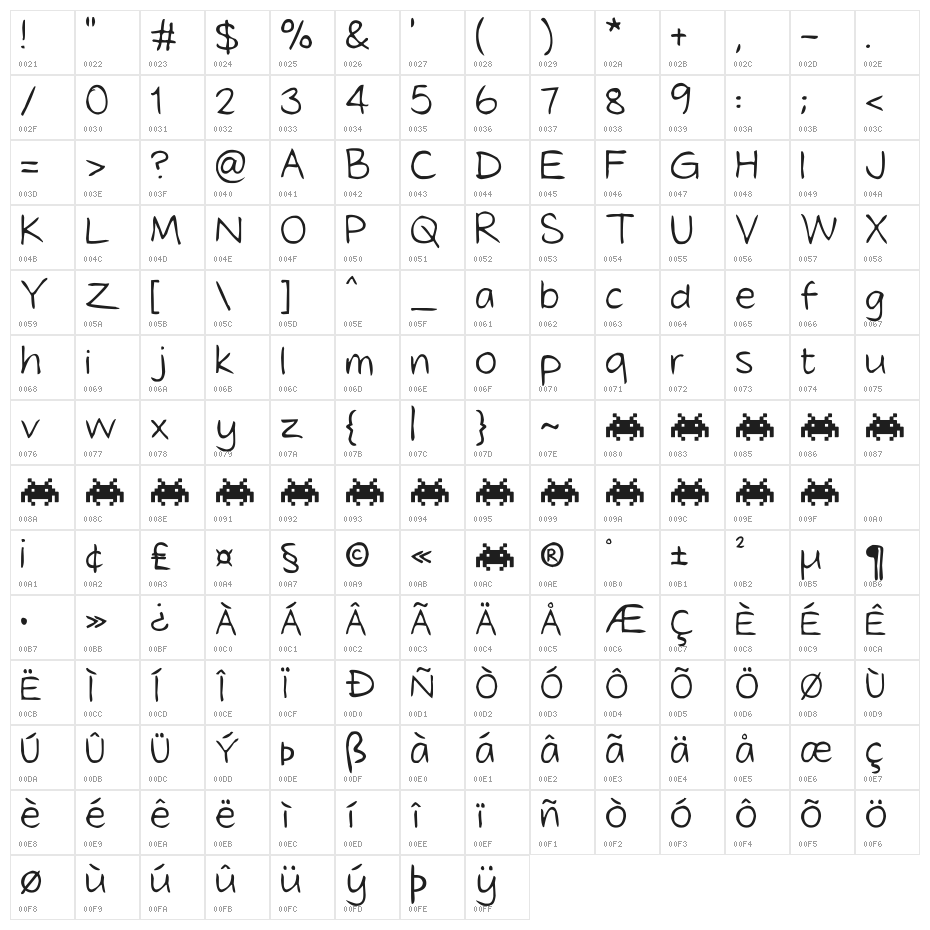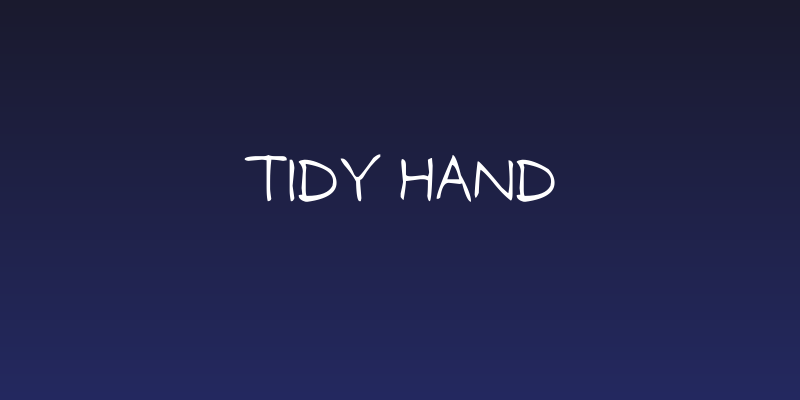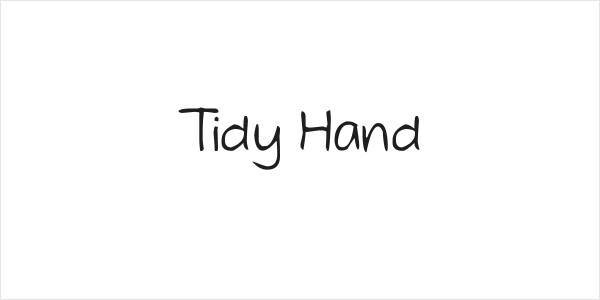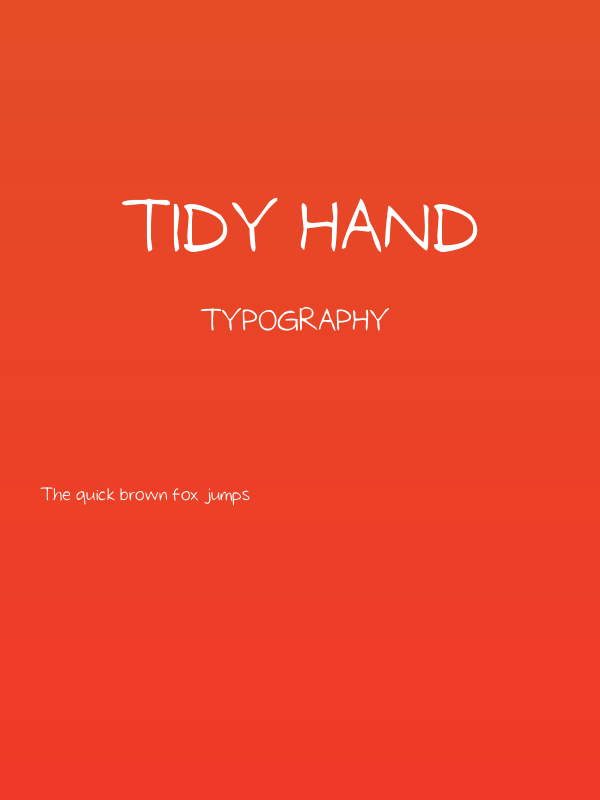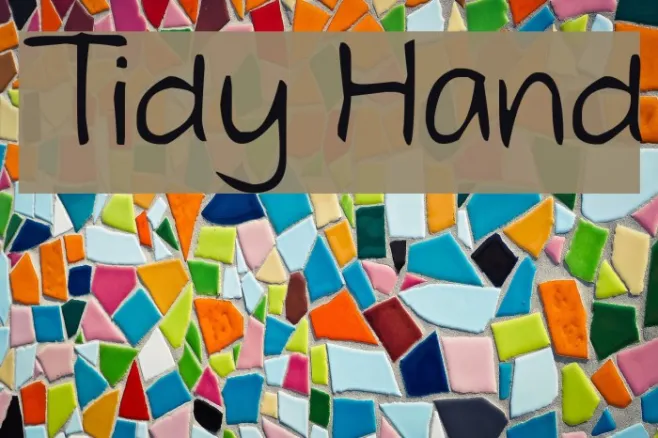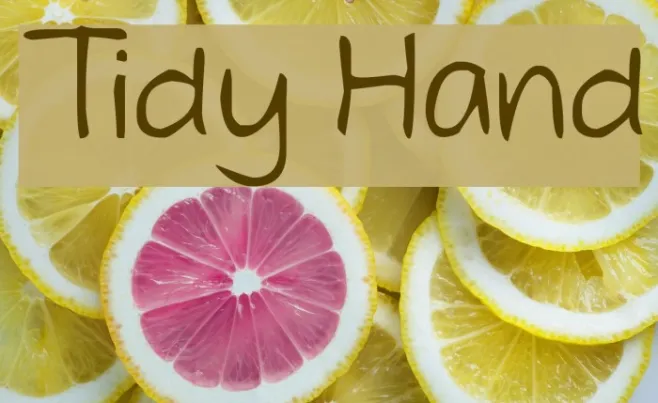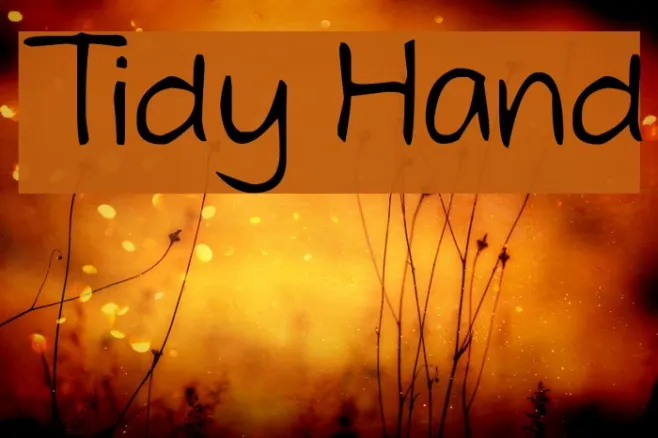
Tidy Hand Font
Tidy Hand Description
This font features a playful and casual handwritten style, characterized by its smooth, flowing lines and slightly irregular letterforms. Each character appears as if it were drawn with a felt-tip pen, giving it a personal and informal touch. The uppercase letters are bold and slightly taller than the lowercase, which are round and open. The numbers and special characters maintain the same playful aesthetic, making them easily readable while retaining the font's unique charm. The overall appearance is friendly and approachable, suitable for projects that require a personal or informal tone.
| Use Case | Headlines, Informal text, Personal projects |
| Proposed Projects | Ideal for greeting cards, children's books, personal blogs, and informal branding. |